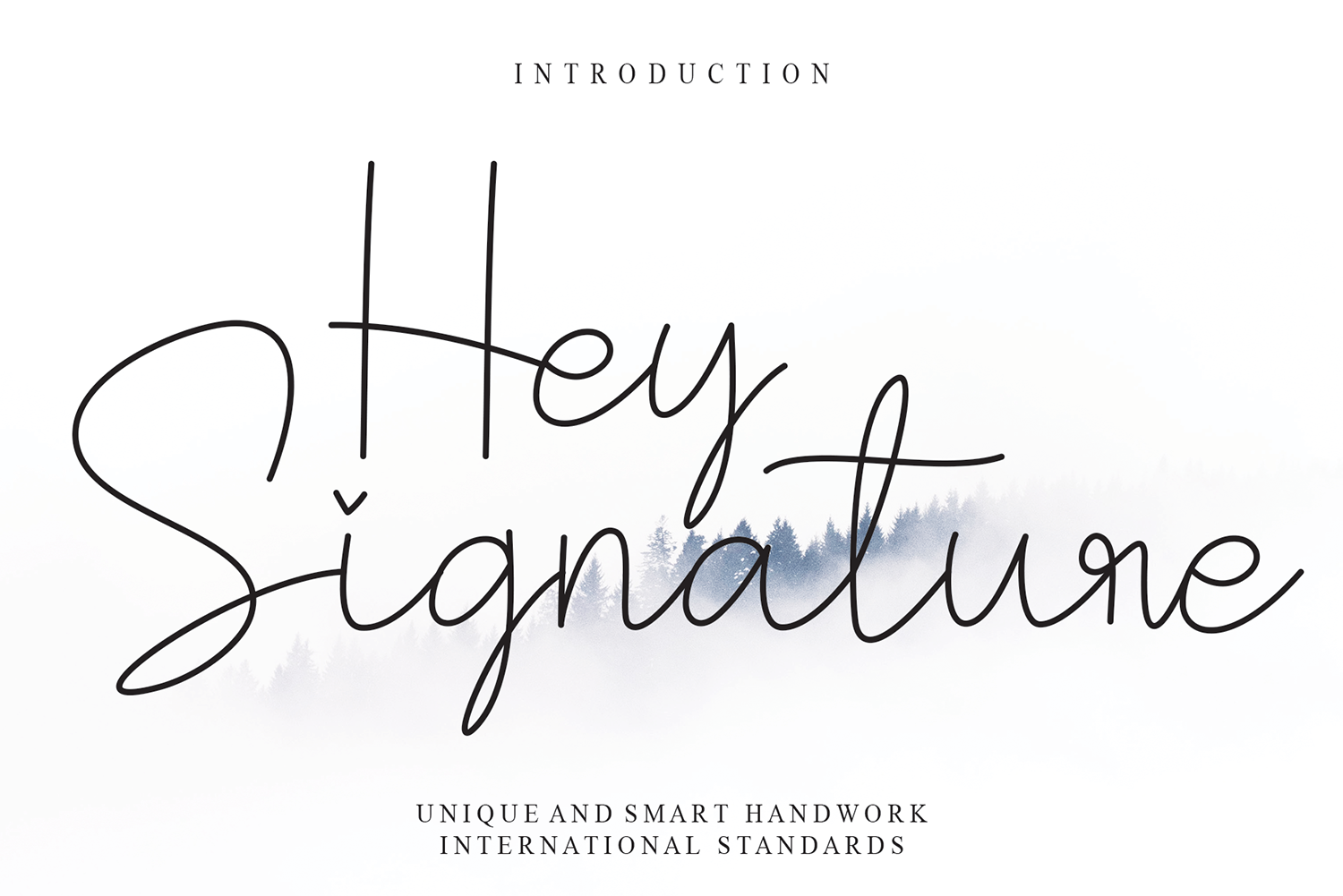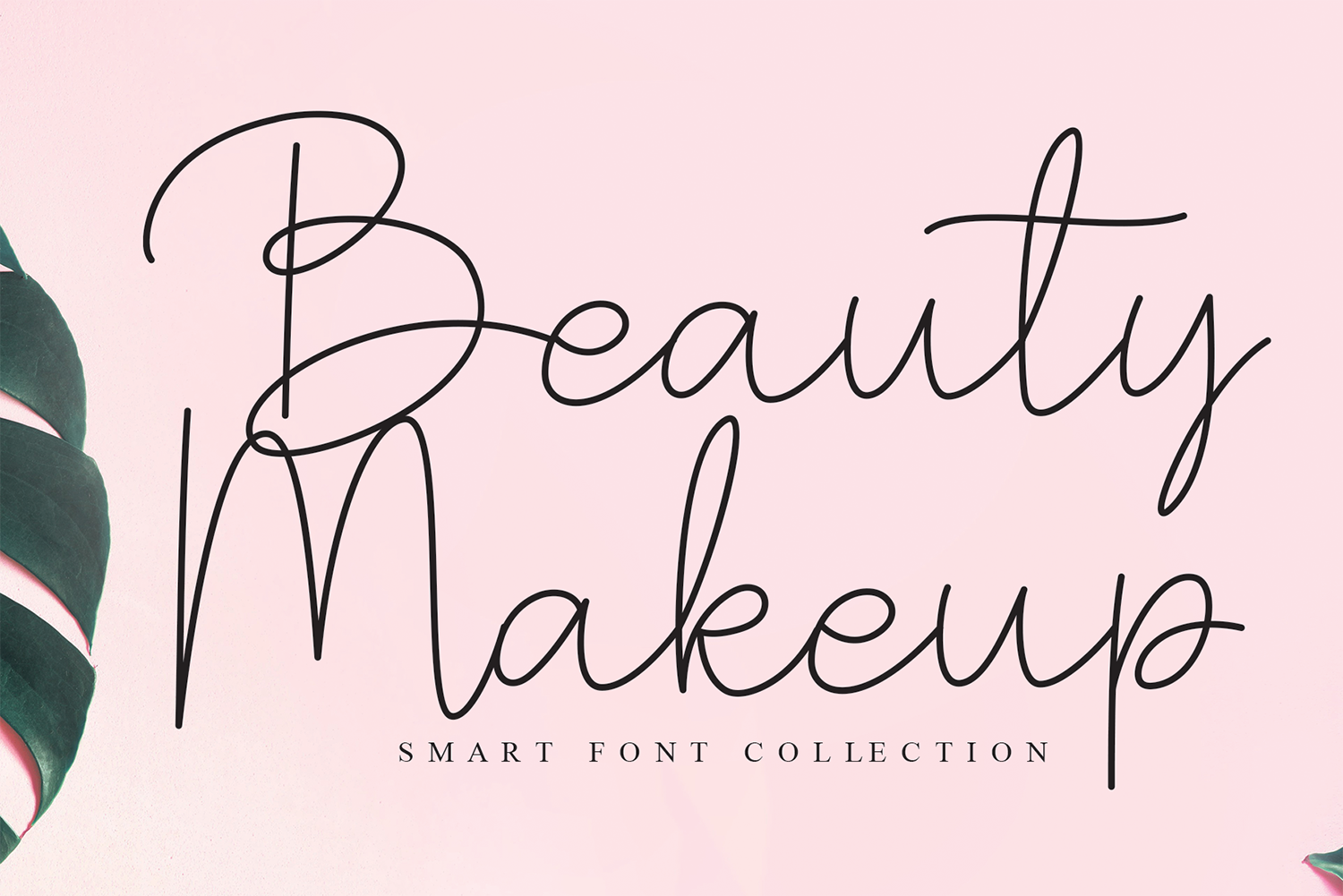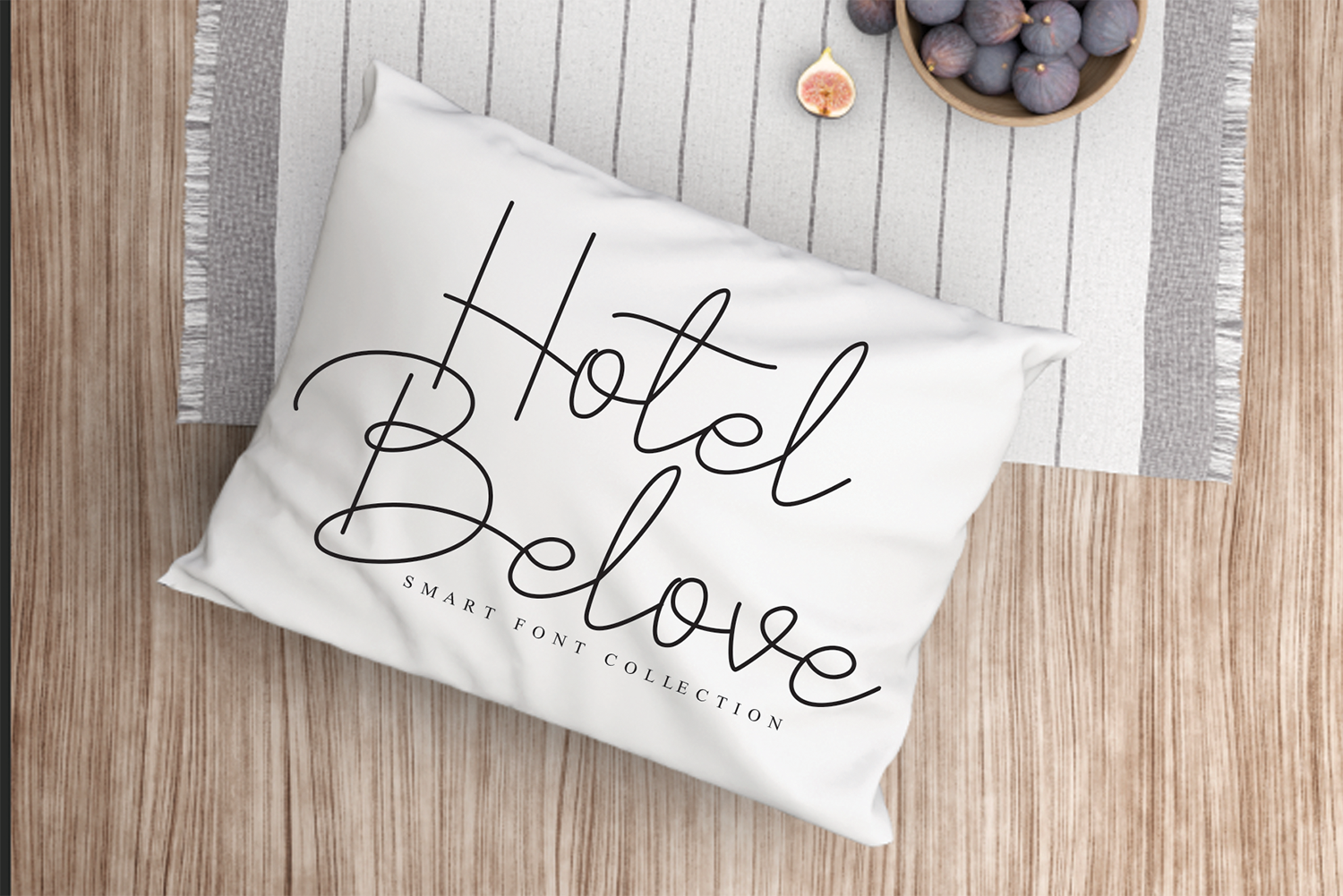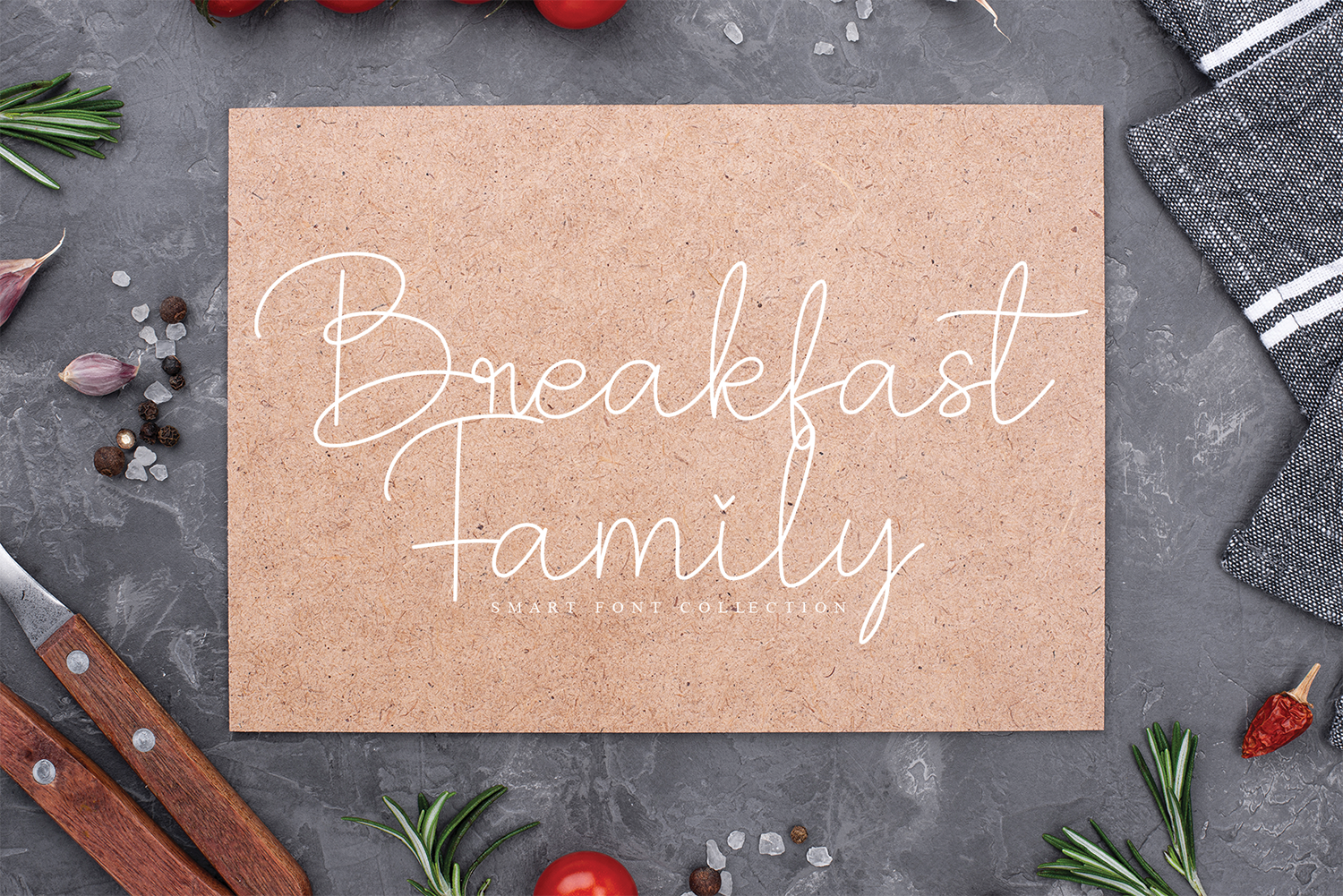
Hey Signature Free Font
Meet Hey Signature Free Font, a refined and slender handwritten font. Its graceful and fluid letterforms transform it into an artistic gem. Embrace its remarkable versatility and employ it to craft extraordinary designs that capture the heart. This free typeface was designed by a talentedΒ Scratchones Creative. If you like it don’t forget to check out the full version.